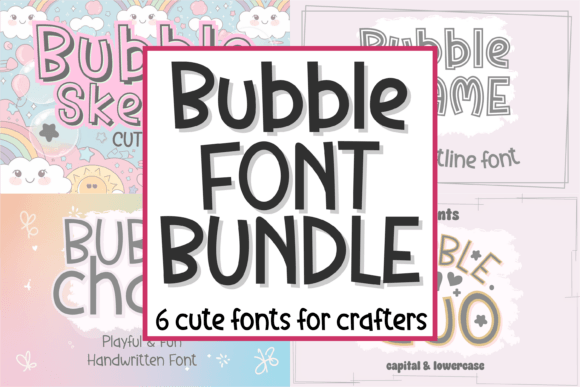
Get Ready to Pop with Creativity!
Do you remember the thrill of rummaging through your childhood art supplies, only to stumble upon a set of bubble pens that brought your drawings to life? For many creatives, those carefree moments are a distant memory, but the joy of self-expression remains a constant desire. That’s where the Bubble Bundle Font comes in – a delightful collection of bubbly, hand-drawn fonts designed to infuse your projects with a touch of fun and whimsy.
This charming font bundle is a must-have for designers seeking to add a playful twist to their work. Whether you’re a seasoned pro or a DIY enthusiast, the Bubble Bundle Font is perfect for crafting stickers, designing t-shirts, or creating greeting cards that will leave a lasting impression. With its rounded edges and charming details, this font bundle is an essential tool for any creative looking to elevate their projects and bring a smile to their audience’s faces.
Bubble Bundle Font Key Features
- Unique Characteristics: Features a playful, rounded design with varying bubble-like shapes, adding a touch of whimsy to digital and print materials.
Bubble Bundle Font Review
At first glance, I was excited to dive into the Bubble Bundle Font. As a designer, I’m always on the lookout for unique and playful fonts to add some visual interest to my projects. ✨ The font’s bubbly, hand-drawn feel is certainly eye-catching, and I can see it working well in children’s books, social media graphics, or any other project that needs a lighthearted touch.
One of the things that really stands out about Bubble Bundle is its versatility. ✨ The font comes in a range of weights, from light to bold, which makes it easy to use in a variety of contexts. I also appreciate the fact that the font is highly customizable, with options for color, size, and spacing. This makes it easy to tailor the font to fit your specific design needs.
While I love the overall aesthetic of Bubble Bundle, there are a few limitations that held me back from giving it a full 5-star review. ⚠️ For one, the font can feel a bit too playful or childish at times, which may not be suitable for more formal or professional projects. Additionally, the font’s irregular shapes can sometimes make it difficult to read at smaller sizes.
Overall, I would give the Bubble Bundle Font 4 out of 5 stars. While it has some limitations, I think it’s a great choice for designers who want to add a touch of whimsy and personality to their projects. With a bit of careful planning and consideration, I think this font has the potential to be a real showstopper.
- Unique, hand-drawn aesthetic
- Range of weights from light to bold
- Regular, bold, and italic styles
To get the most out of the Bubble Bundle Font, use it for playful and creative designs, such as social media graphics, blog posts, and children’s educational materials. You can also use it to add a touch of whimsy to your branding and marketing materials.
When using the font, keep in mind that it is a bold and eye-catching font, so use it sparingly to avoid overwhelming the design. Experiment with different font sizes and colors to create a visually appealing design.